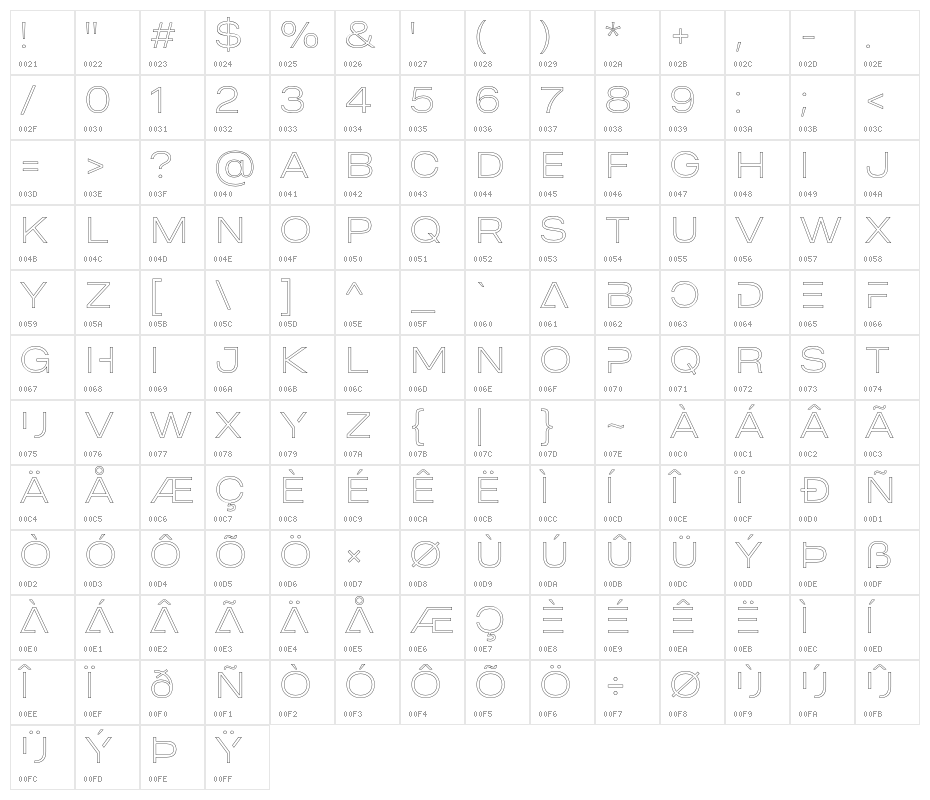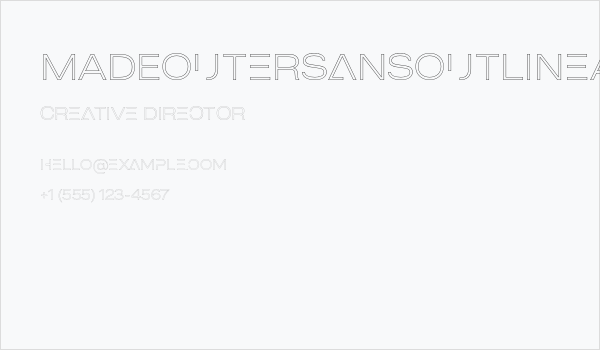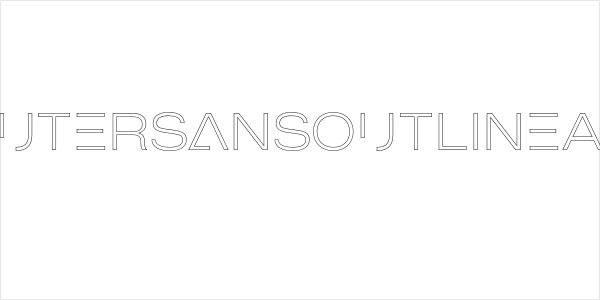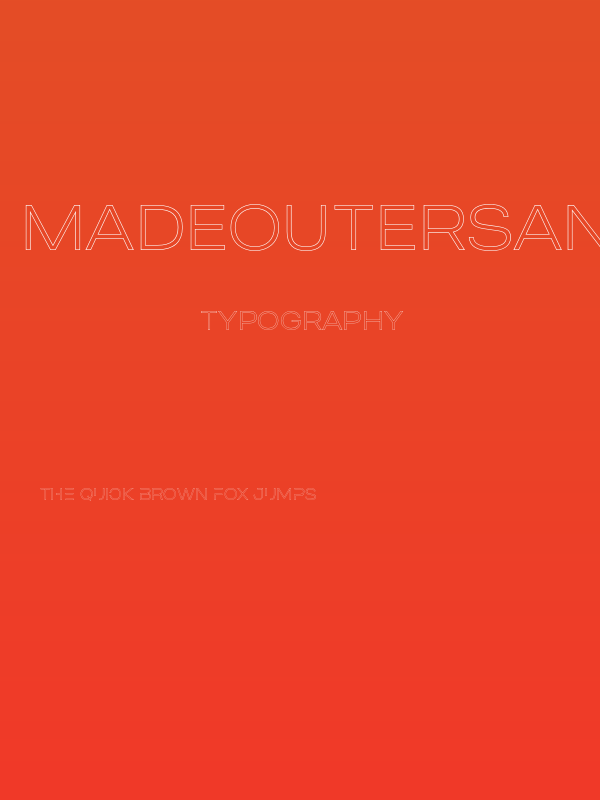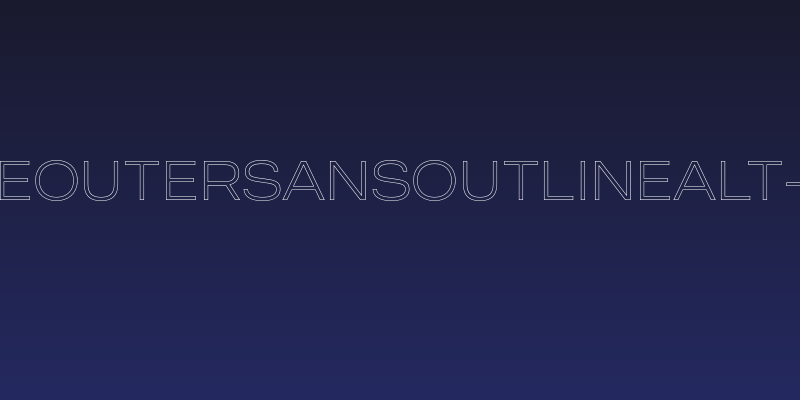
MADEOuterSansOutlineAlt-Thin Font
MADEOuterSansOutlineAlt-Thin Description
This font features a modern and sleek outline design, characterized by its thin, geometric letterforms. The uppercase and lowercase letters maintain a consistent style, with clean lines and a minimalist aesthetic. The numerals and special characters follow the same design principles, ensuring a cohesive look across all glyphs. The font's outline nature gives it a unique, airy appearance, making it suitable for projects that require a contemporary and stylish touch.
| Proposed Projects | Ideal for branding, posters, and digital media where a modern and stylish look is desired. |